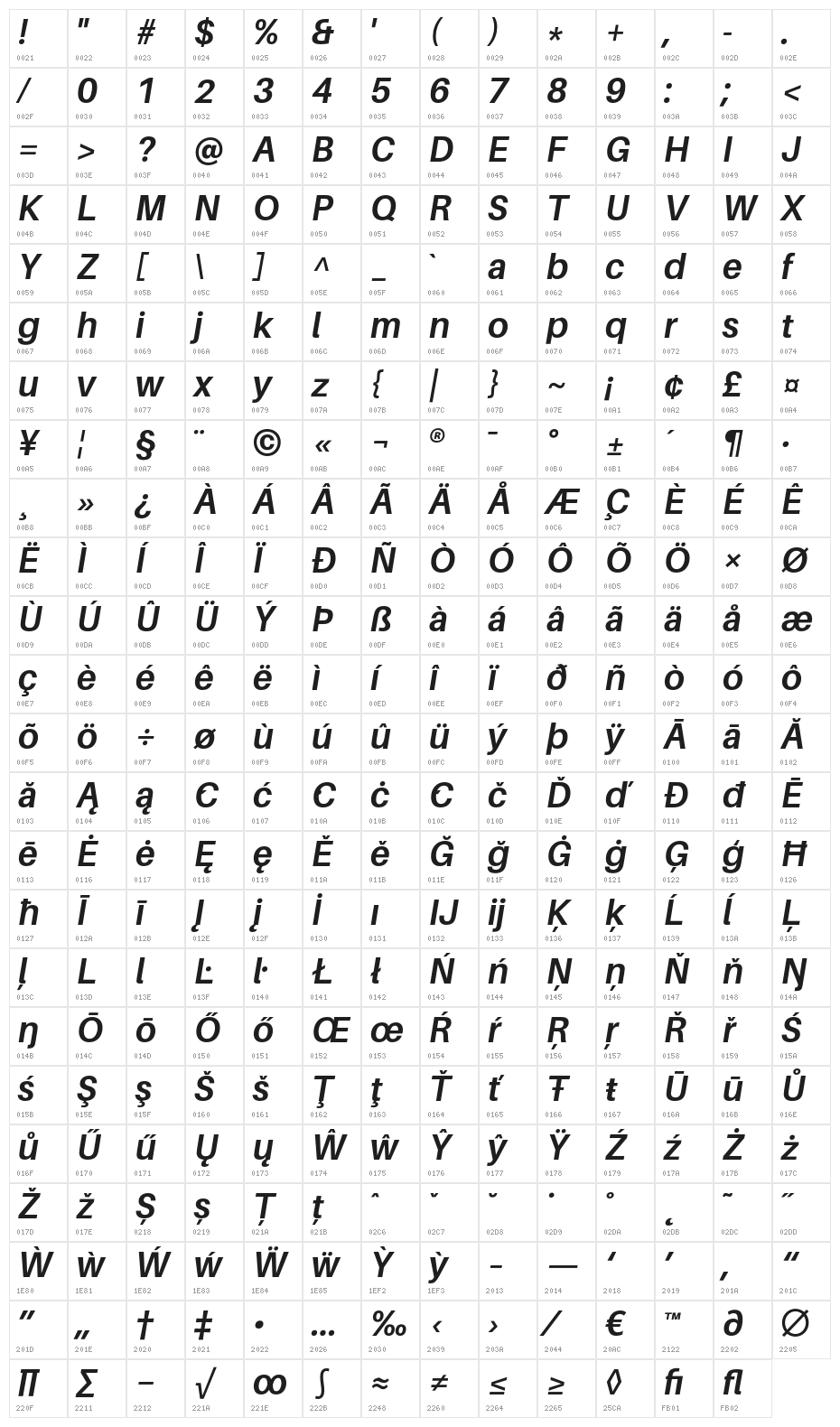
Aileron Bold Italic Font
Aileron Bold Italic Description
This typeface features a sleek and modern design with a bold and italicized style. The characters are slightly slanted, giving a dynamic and forward-moving appearance. The strokes are consistent in thickness, providing a uniform look across all characters. The uppercase and lowercase letters are well-proportioned, and the numerals are clear and easy to read. Special characters are distinct and maintain the overall aesthetic of the font. This font is versatile, suitable for both digital and print media, and can be used to convey a sense of professionalism and modernity.
| Proposed Projects | Ideal for branding, advertising, and editorial design projects. |